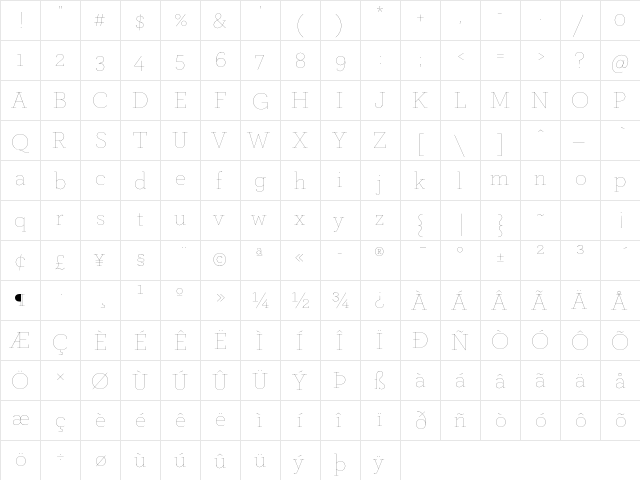
ArcherPro Hairline
Design Context for ArcherPro Typeface
ArcherPro offers clean, dependable letterforms without strong stylistic allegiance, making it a practical choice for designers who need flexibility. Its slender proportions lend an understated elegance to any composition.